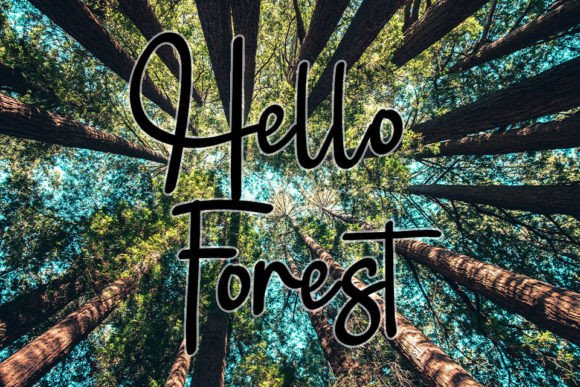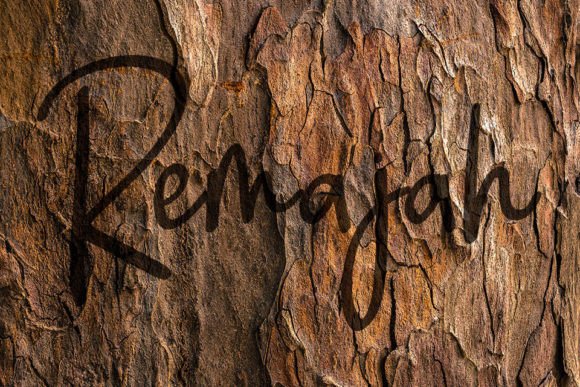
Introduction to Mesitog Font
Mesitog is an exquisite handwritten font, masterfully designed to become a true favorite.
Key Features of Mesitog Font
Why Choose Mesitog Font?
Mesitog Font offers exceptional quality and versatility, making it a valuable addition to your design toolkit. Whether you’re creating for personal projects or commercial use, Mesitog Font delivers professional results.